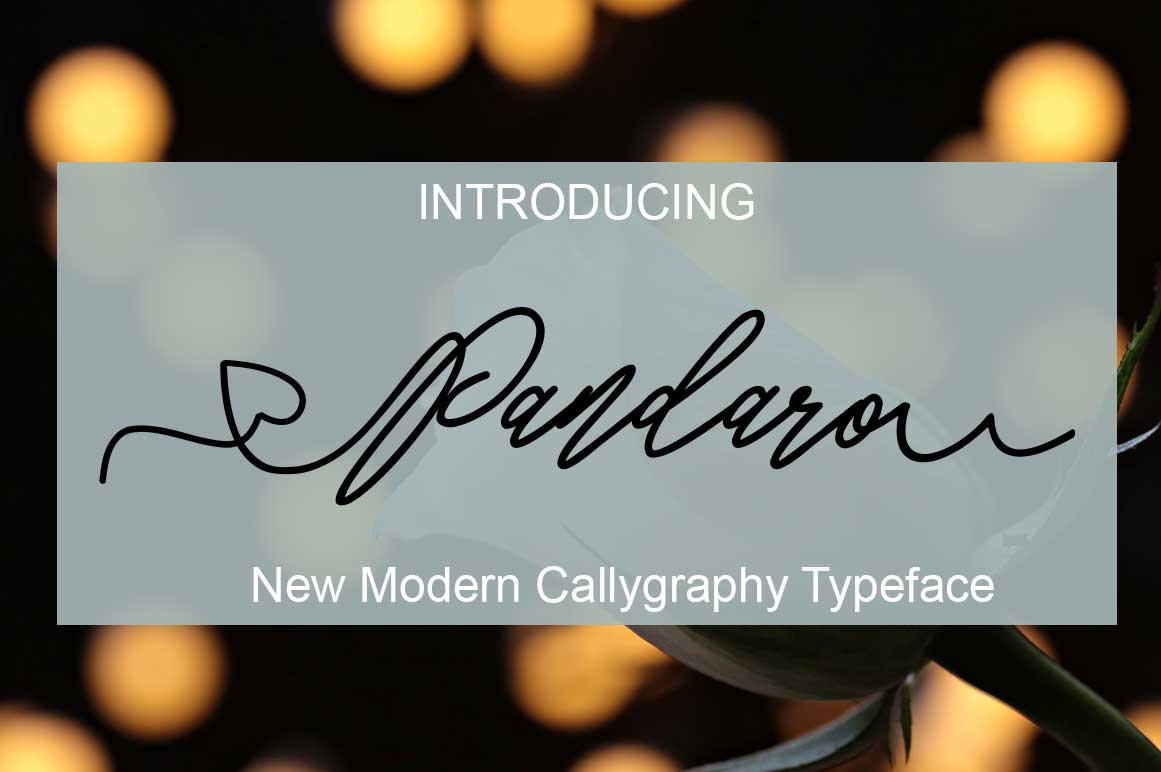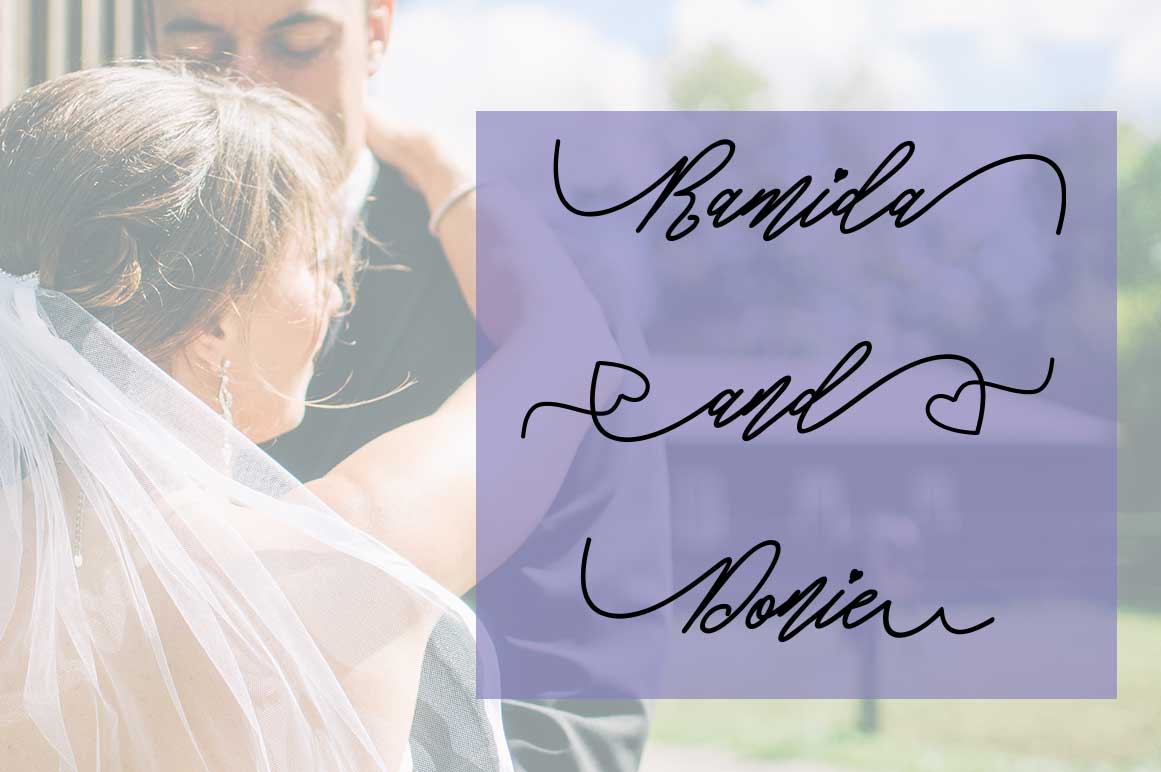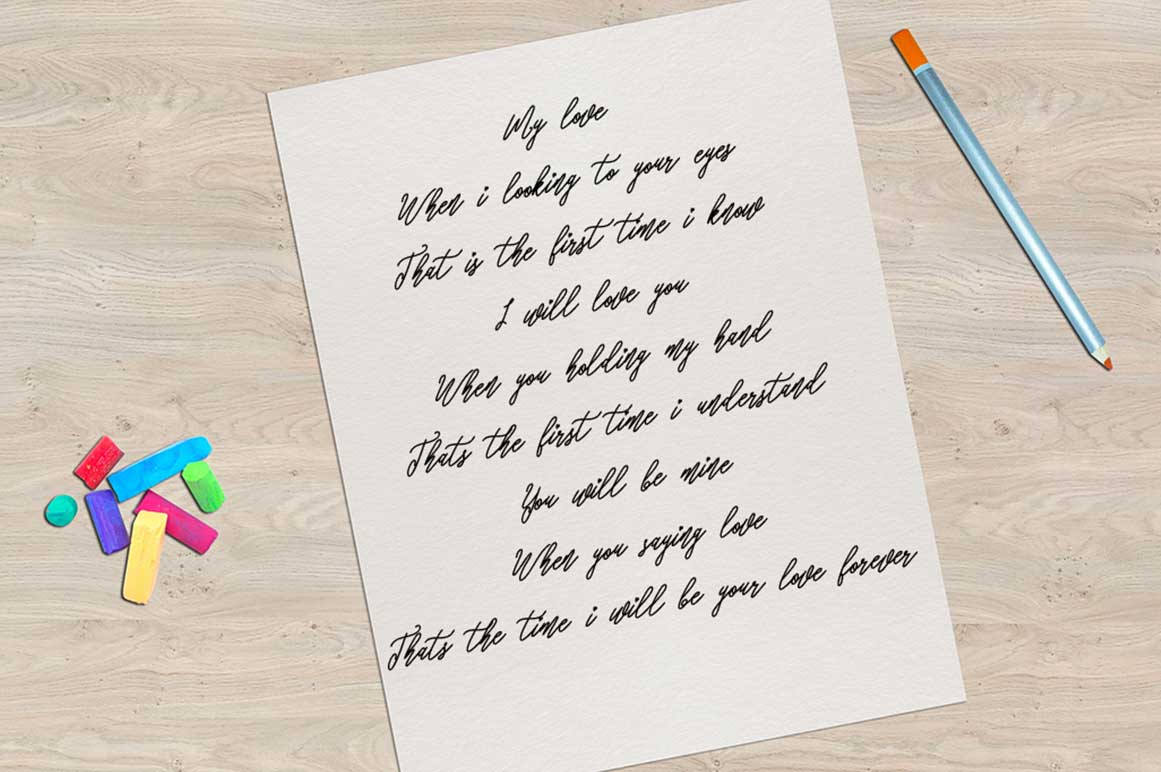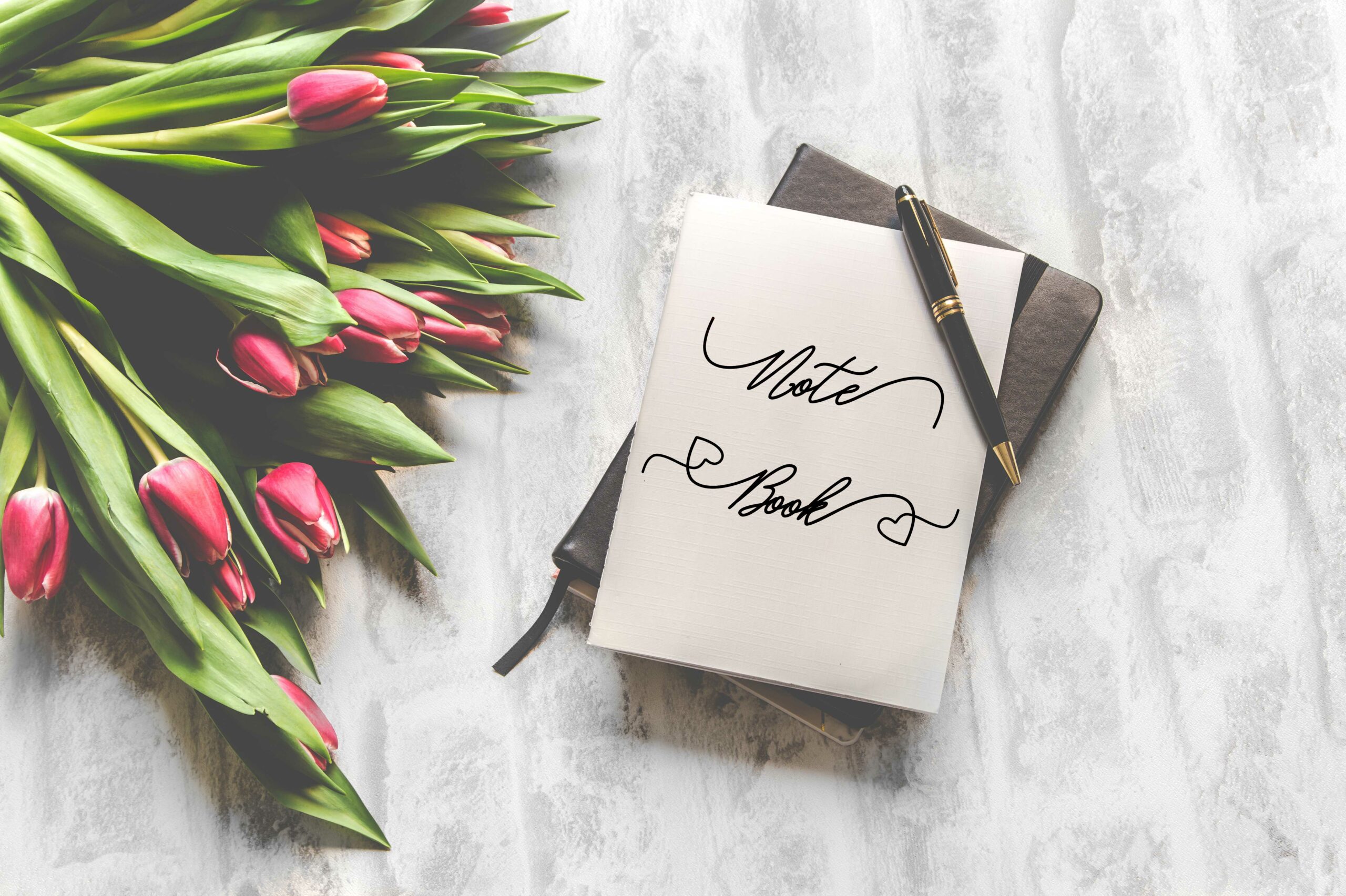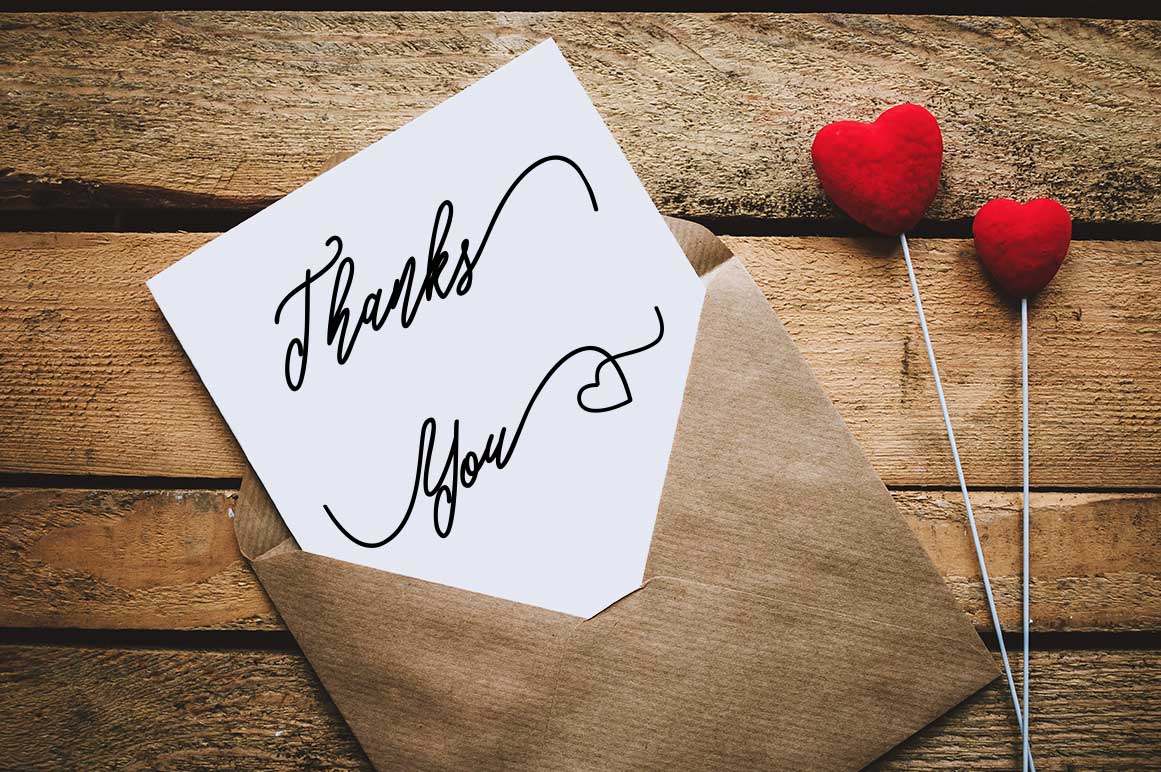
Pandaro Font
About Pandaro Font
Pandaro is a modern and unique handmade calligraphy font, perfect for a wide range of designs. This font comes with tons of glyphs and looks great in modern, special occasion projects.